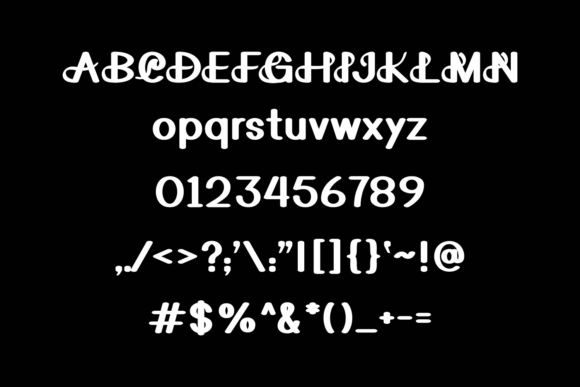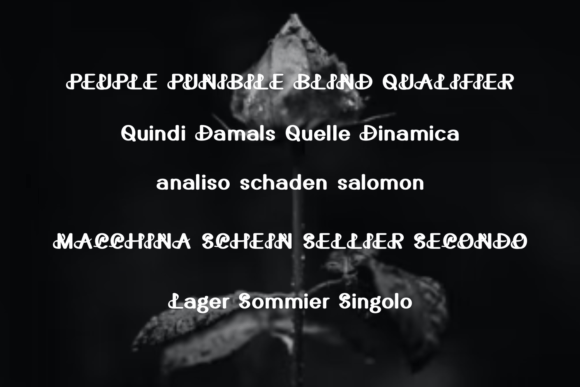
Introduction to Niroshy Font
Remember that moment when you were brainstorming ideas for a new design project and the perfect font slipped your mind? You knew exactly what you wanted – something unique, eye-catching, and high-quality to make your creative project stand out. That’s where the Niroshy Font comes in – a game-changer for designers and a valuable addition to any design resource library.
The Niroshy Font is a cool and unique display font that has the potential to elevate any creation. With its sleek design and transparent background, it’s perfect for making a statement in your next design project. Whether you’re working on a personal or professional project, this font is sure to impress.
With the Niroshy Font, you’ll have access to a high-quality design asset that’s free to download and use. Say goodbye to mediocre designs and hello to a world of creative possibilities. In this article, we’ll dive deeper into the world of Niroshy Font and explore its features, benefits, and how you can use it to take your designs to the next level.
Key Features of Niroshy Font
- Unique, hand-drawn design elements and transparent background provide versatility for various design applications.
- Designed to be scalable, suitable for use in both small and large-scale creative projects, from business cards to billboards.
- Perfect for designers seeking a distinctive and creative design resource for their projects.
Honest Review: Niroshy Font
As a designer, I’ve had the opportunity to work with a wide range of fonts for various creative projects. Recently, I stumbled upon the Niroshy Font, and I must say it’s been a game-changer for my design resource collection.
The Niroshy Font is known for its high quality and versatility, making it an excellent choice for designers who want to add a touch of elegance to their work. One of the standout features of this font is its ability to be used with a transparent background, which allows for seamless integration with other design elements.
Here are some of the things that work well with the Niroshy Font:
- ✨ Highly customizable: The font can be easily modified to fit your design needs, making it an excellent choice for creative projects.
- ✨ Versatile: The Niroshy Font can be used for a wide range of design applications, from logos to typography.
- ⚠️ Limited font styles: While the Niroshy Font is versatile, it does lack a wide range of font styles, which may be a limitation for designers who want more options.
- ⚠️ May not be suitable for small text: Due to its elegant design, the Niroshy Font may not be the best choice for small text, as it may become difficult to read.
Overall, I’m impressed with the Niroshy Font, and I would definitely recommend it to designers who are looking for a high-quality, versatile font for their creative projects.